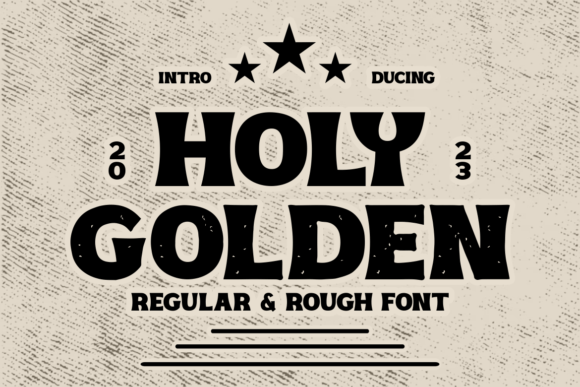
Introducing Holy Golden Font, the ultimate choice for all your movie poster needs. This bold and captivating serif font, created by putracetol, seamlessly combines retro charm with classic elegance.
With its two versatile versions - a clean and a rough, textured variant - Holy Golden Font allows you to create stunning designs that evoke nostalgic and vintage vibes.
Whether you're designing a logo, poster, sticker, or business name, this font is guaranteed to add a touch of timeless appeal to your creative projects. Its unique aesthetic makes it perfect for titles, headlines, business cards, and quotes, giving your content an instant boost of sophistication.
But what truly sets Holy Golden Font apart is its PUA encoding. This means you can easily access an array of amazing glyphs and ligatures, allowing you to customize and elevate your designs effortlessly.
Immerse your audience in a world of cinematic magic with Holy Golden Font. Its strong presence and captivating style will leave a lasting impression on anyone who lays eyes on your creations.